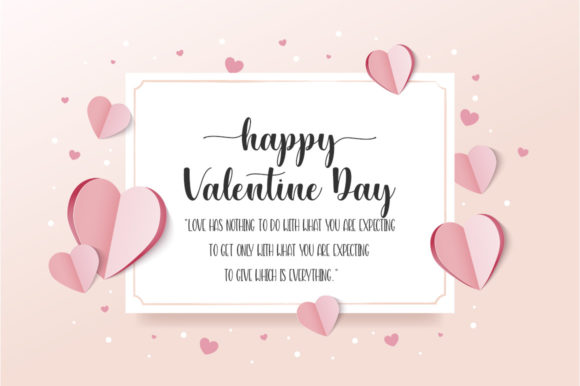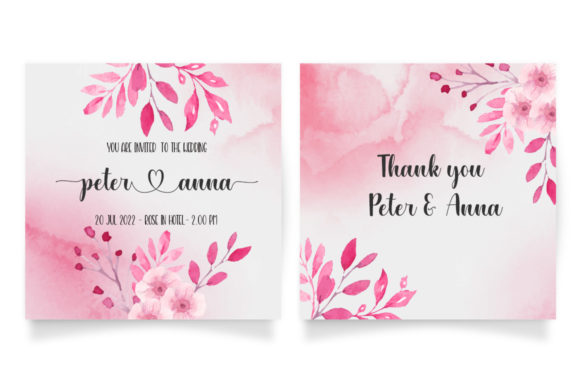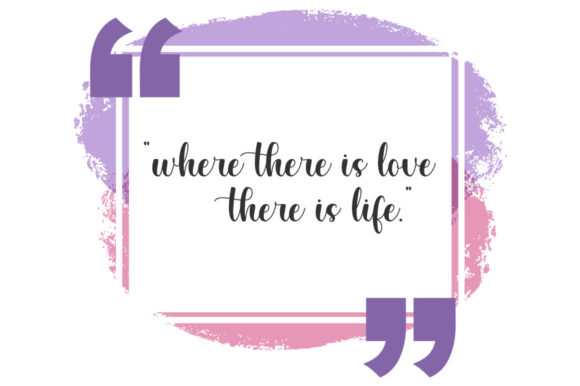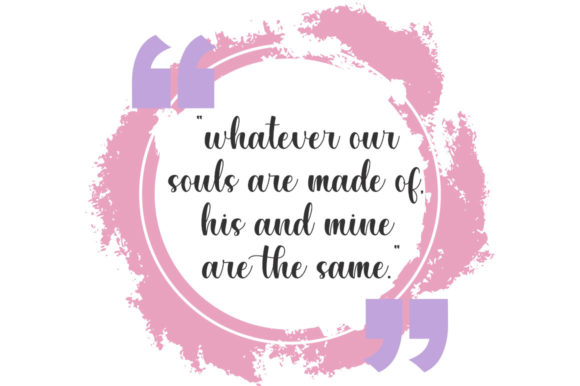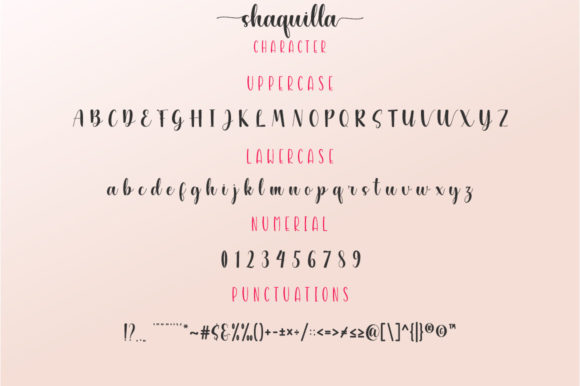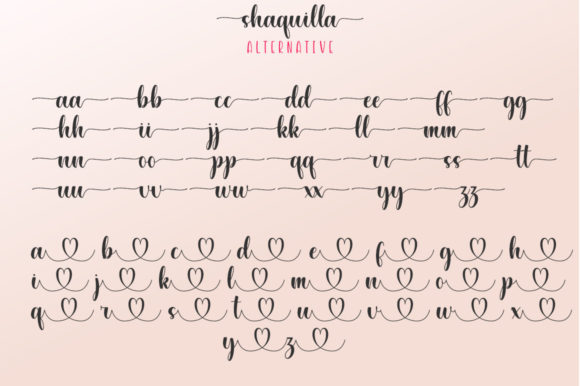
The Birth of a Masterpiece: Baby Shaquilla Font
Have you ever stared at a blank page, pencil in hand, waiting for inspiration to strike? That’s exactly what happened to me the day I discovered the Baby Shaquilla Font. Its delicate curves and refined lines instantly sparked a creative fire within me, and I knew I had to dive deeper.
Baby Shaquilla Font is a stunning duo font, expertly blending the elegance of a sans serif with the whimsy of a script. This beautiful combination makes it the perfect tool for designers looking to add a touch of sophistication to their work. With its incredible versatility, Baby Shaquilla Font can be used to create anything from elegant invitations to eye-catching advertisements.
What sets Baby Shaquilla Font apart is its PUA encoding, making it easy to access all the glyphs and swashes you need to bring your designs to life. Whether you’re a seasoned pro or just starting out, this font is sure to become a trusted companion in your creative journey.
- Unique Characteristics: Whimsical, childlike script with a playful feel, suitable for informal and creative designs
Designer Review: Baby Shaquilla Font
Overall, I’m impressed with the whimsical and playful vibe of the Baby Shaquilla font. ✨ The font’s rounded edges and childlike charm make it perfect for creating a sense of nostalgia and innocence in designs.
Here are some features that work well:
- Unique and quirky design that stands out from more common fonts
- Works well for titles, headings, and short paragraphs
- Easy to read, even at smaller font sizes
- May not be suitable for formal or professional designs
- Can be overwhelming if used extensively throughout a design
- May not be compatible with all operating systems or devices
My overall impression is that Baby Shaquilla is a great choice for designers looking to add a touch of whimsy and personality to their designs. While it may not be suitable for all projects, it’s a versatile font that can add a unique touch to children’s books, nursery decor, and other related designs.
Common use cases for Baby Shaquilla Font include:
– Creating playful and whimsical designs for children’s products.
– Adding a touch of elegance to wedding invitations or stationery.
– Using it for social media graphics or online advertising.
– Experimenting with bold and colorful combinations for eye-catching designs.
Alternative Fonts to Baby Shaquilla Font
Great Vibes is a beautiful, elegant script font perfect for adding a touch of sophistication to your designs. It’s ideal for use in wedding invitations, quotes, and other decorative text. Great Vibes has a more refined and classic feel compared to Baby Shaquilla Font, which is more playful and casual.
Carolyna Pro is a modern script font that’s perfect for creating a luxurious and elegant look. It’s great for use in branding, packaging, and other high-end designs. Compared to Baby Shaquilla Font, Carolyna Pro has a more polished and refined feel, making it suitable for more formal applications.
Juliet Script Font
Juliet Script is a beautiful, whimsical script font that’s perfect for adding a touch of romance to your designs. It’s ideal for use in wedding invitations, quotes, and other decorative text. Juliet Script has a more feminine and delicate feel compared to Baby Shaquilla Font, which is more playful and casual.
Carolyna Pro – a font similar but more refined to Baby Shaquilla Font.
Carolyna Pro is a modern script font with a more refined and elegant feel compared to Baby Shaquilla Font. While it shares some similarities with Baby Shaquilla Font, Carolyna Pro has a more polished and sophisticated look, making it suitable for a wide range of designs, from branding to packaging.